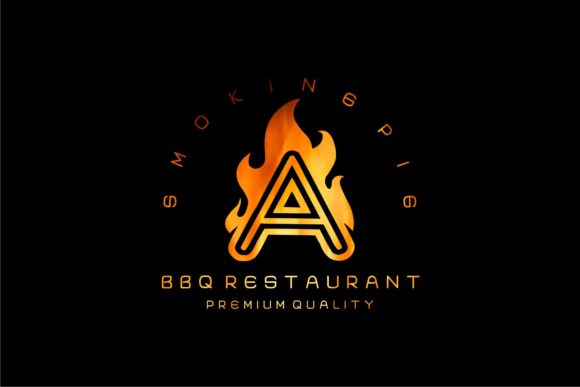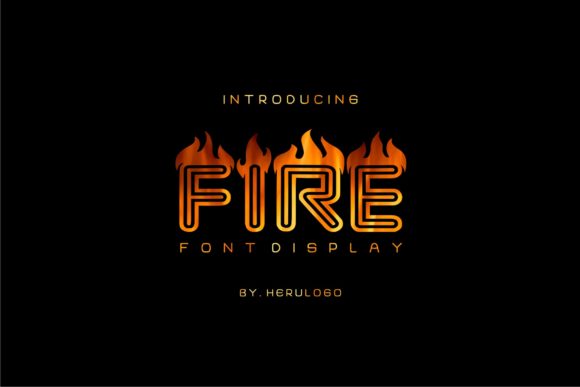
Ignite Your Designs with Fire Font: The Ultimate Display Font for BBQ and Grill Themes
Are you looking for a font that can add a spark to your designs, especially when it comes to BBQ or grill themes? Look no further than Fire Font! This stunning display font features flames and fire, making it the perfect addition to any project that needs a bold and eye-catching touch.
What is Fire Font?
Fire Font is a unique and creative display font that is designed to resemble flames and fire. Its bold and fiery design makes it perfect for headlines, titles, and any other text that needs to stand out. The font is highly versatile and can be used for a wide range of projects, from BBQ and grill-themed designs to firework displays, summer festivals, and more.
Key Features of Fire Font
• Unique Flame Design: The font features a stunning flame design that is sure to grab attention.
• Highly Versatile: Fire Font can be used for a wide range of projects, from digital designs to print materials.
• Easily Customizable: The font can be easily customized to fit your specific design needs.
• Perfect for BBQ and Grill Themes: The font is specifically designed to elevate any BBQ or grill theme.
How to Use Fire Font in Your Designs
Using Fire Font in your designs is easy! Here are a few tips to get you started:
• Pair it with a bold color scheme: Fire Font looks great when paired with bold and bright colors, such as red, orange, and yellow.
• Use it for headlines and titles: The font is perfect for headlines and titles, where you want to grab the reader’s attention.
• Add some texture: Adding some texture to your design can help to enhance the flame effect of the font.
Benefits of Using Fire Font
There are many benefits to using Fire Font in your designs. Here are a few:
• Adds a unique touch: The font adds a unique and creative touch to any design.
• Increases visibility: The bold and eye-catching design of the font makes it perfect for grabbing the reader’s attention.
• Perfect for seasonal designs: The font is perfect for seasonal designs, such as summer festivals, BBQ, and grill themes.
Who Can Use Fire Font?
Fire Font is perfect for a wide range of designers and crafters, including:
• Graphic designers: The font is perfect for graphic designers who want to add a unique touch to their designs.
• Digital artists: The font is great for digital artists who want to create bold and eye-catching designs.
• Crafters: The font is perfect for crafters who want to create custom signs, banners, and other DIY projects.
Font Name Fire Font
Author Herulogo
Fire Font is a stunning display font that is sure to ignite your designs! With its unique flame design and highly versatile nature, it’s perfect for a wide range of projects, from BBQ and grill themes to firework displays and summer festivals. Whether you’re a graphic designer, digital artist, or crafter, Fire Font is a must-have font that will add a bold and eye-catching touch to any design.